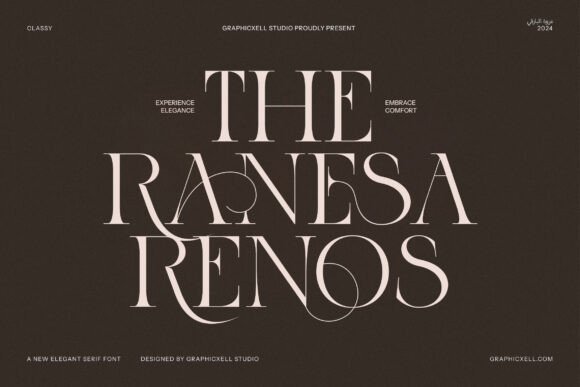
Ranesa Renos Font: Elevate Your Brand with Sophistication
In the world of typography, a well-crafted font can make all the difference in elevating a brand’s visual identity. Ranesa Renos, a sophisticated ligature serif font, has been meticulously designed to exude premium quality and a luxury feel. Its unique ligatures set it apart from regular serif fonts, making it an ideal choice for various formal applications.
The Story Behind Ranesa Renos
Ranesa Renos is more than just a font; it’s a statement of elegance and refinement. The creators of this exquisite typeface have poured their expertise into crafting a font that not only catches the eye but also conveys a sense of sophistication. Whether you’re looking to create a lasting impression with your logo, headline, or title, Ranesa Renos is the perfect choice.
What Makes Ranesa Renos Unique?
The standout feature of Ranesa Renos is its ligatures. Unlike traditional serif fonts, Ranesa Renos boasts intricate connections between letters, giving it a distinctive and luxurious feel. These ligatures not only enhance the aesthetic appeal of the text but also contribute to its readability. This unique characteristic makes Ranesa Renos particularly suitable for applications where making a statement is crucial.
Applications of Ranesa Renos
Ranesa Renos is incredibly versatile, making it suitable for a wide range of applications. Some of the most notable uses include:
- Logo Design: Create a memorable brand identity with Ranesa Renos. Its unique ligatures ensure your logo stands out.
- Headlines and Titles: Add a touch of elegance to your headlines and titles, making them more engaging and sophisticated.
- Invitations and Greeting/Wedding Cards: Impress your guests with beautifully designed invitations and cards that exude luxury.
- Labels and Packaging: Elevate your product’s presentation with labels and packaging that showcase the sophistication of Ranesa Renos.
- Magazines and Books: Enhance the reading experience with a font that combines readability with an upscale feel.
- Fashion and Makeup: Perfect for branding in the fashion and makeup industries, where style and elegance are paramount.
- Stationery and Novels: Add a touch of class to your stationery and novels, making them more appealing to readers.
- Advertising: Use Ranesa Renos in any type of advertising to convey a message of luxury and quality.
Benefits of Using Ranesa Renos
Choosing Ranesa Renos for your typography needs comes with numerous benefits:
- Unique Identity: The ligatures in Ranesa Renos provide a unique identity that can help differentiate your brand from competitors.
- Versatility: Its wide range of applications makes Ranesa Renos a versatile addition to your brand’s assets.
- Premium Feel: Instantly elevate the perceived value of your brand with a font that exudes luxury.
- Readability: Despite its decorative nature, Ranesa Renos maintains high readability, ensuring your message is conveyed effectively.
How to Use Ranesa Renos Effectively
To maximize the impact of Ranesa Renos, consider the following tips:
- Pair with Simpler Fonts: When using Ranesa Renos for headlines, pair it with a simpler font for body text to create visual hierarchy.
- Adjust Ligatures: Experiment with different ligatures to find the combination that best suits your design.
- Consider Size and Color: Ensure the font size and color complement your overall design, making Ranesa Renos stand out without overwhelming the viewer.
Ranesa Renos is more than just a font; it’s a tool for brands to communicate luxury, elegance, and sophistication. Its unique ligatures, combined with its versatility and premium feel, make it an excellent choice for various applications. By incorporating Ranesa Renos into your brand’s visual identity, you’re not just choosing a font; you’re making a statement. Elevate your brand’s presence and make a lasting impression with Ranesa Renos.